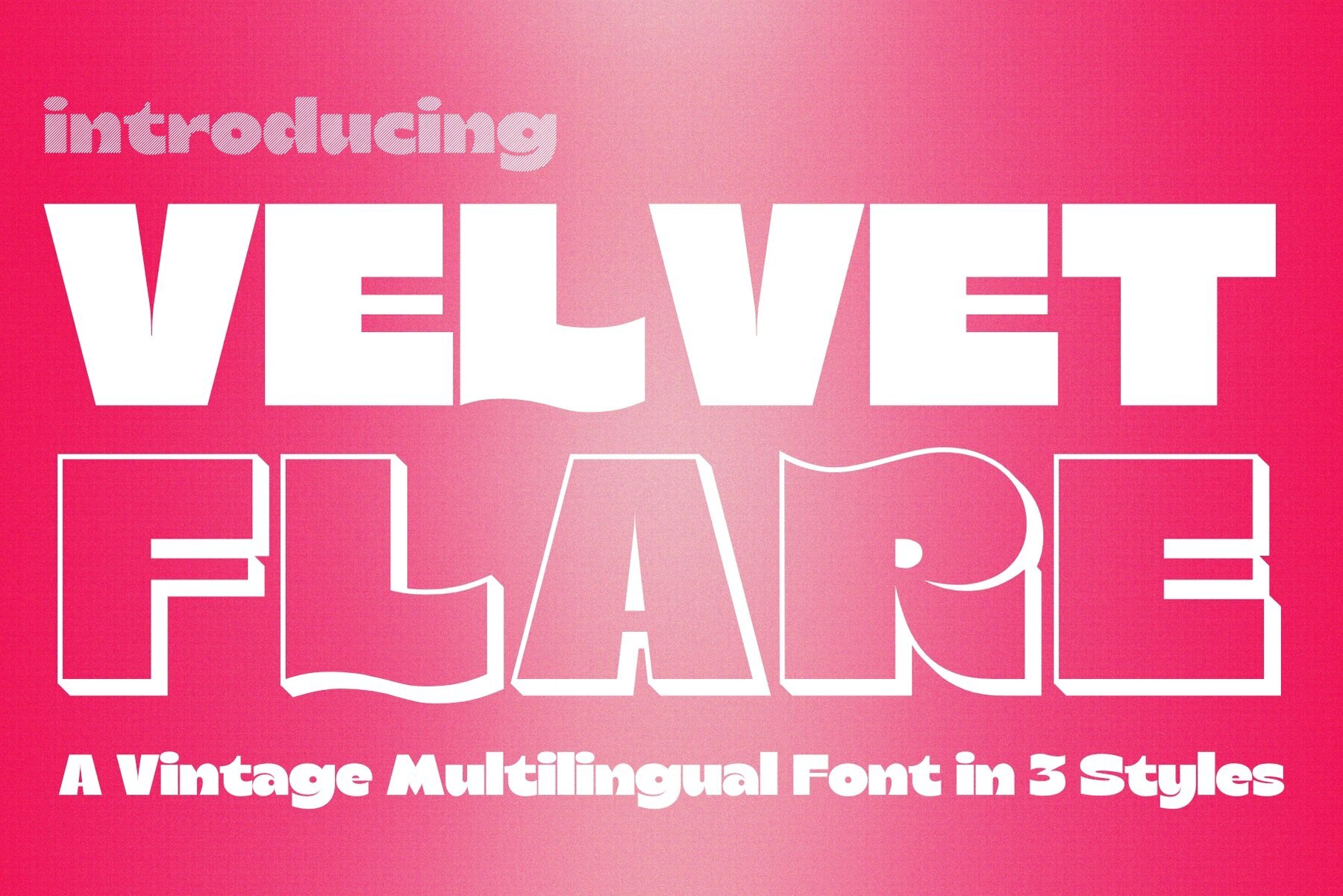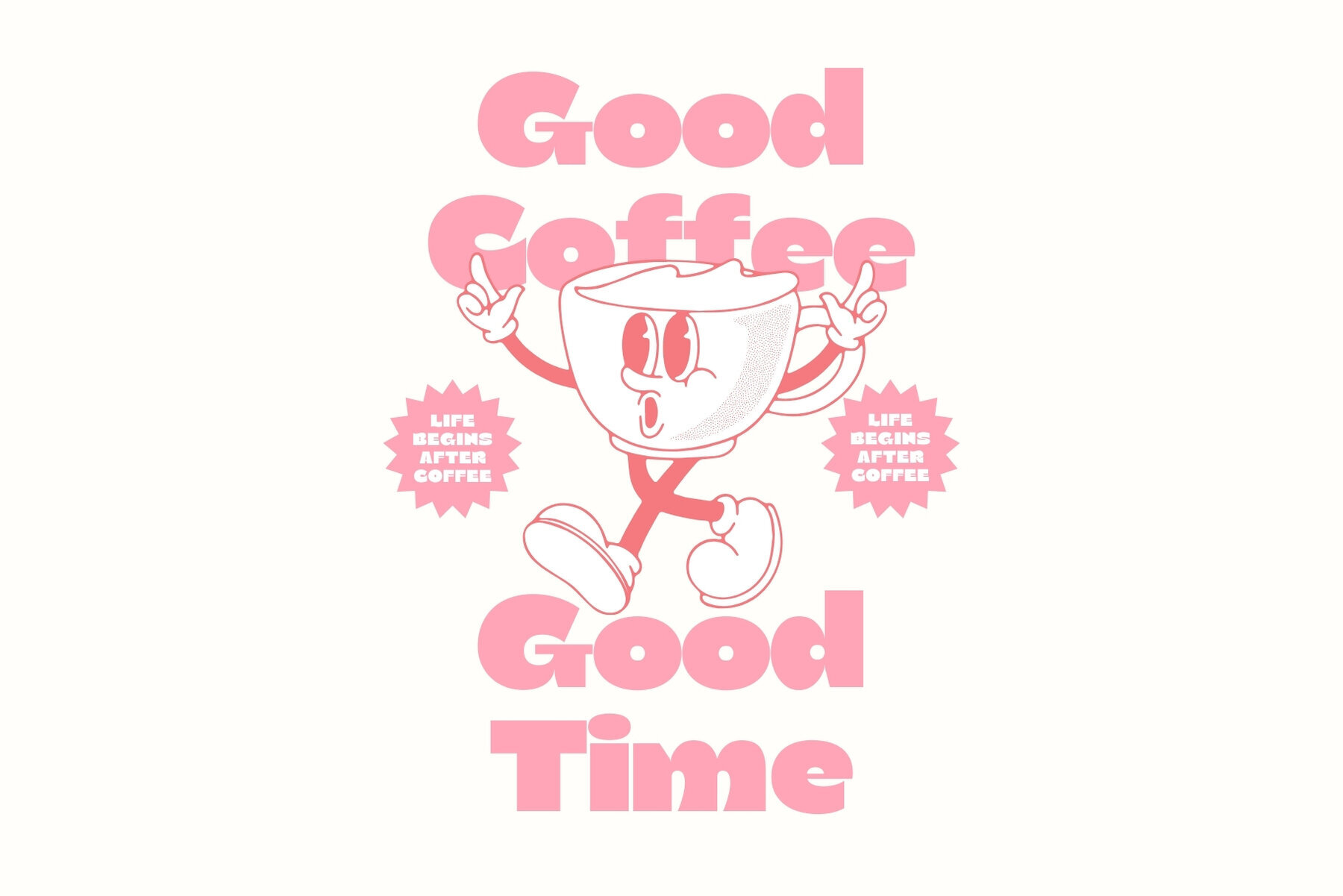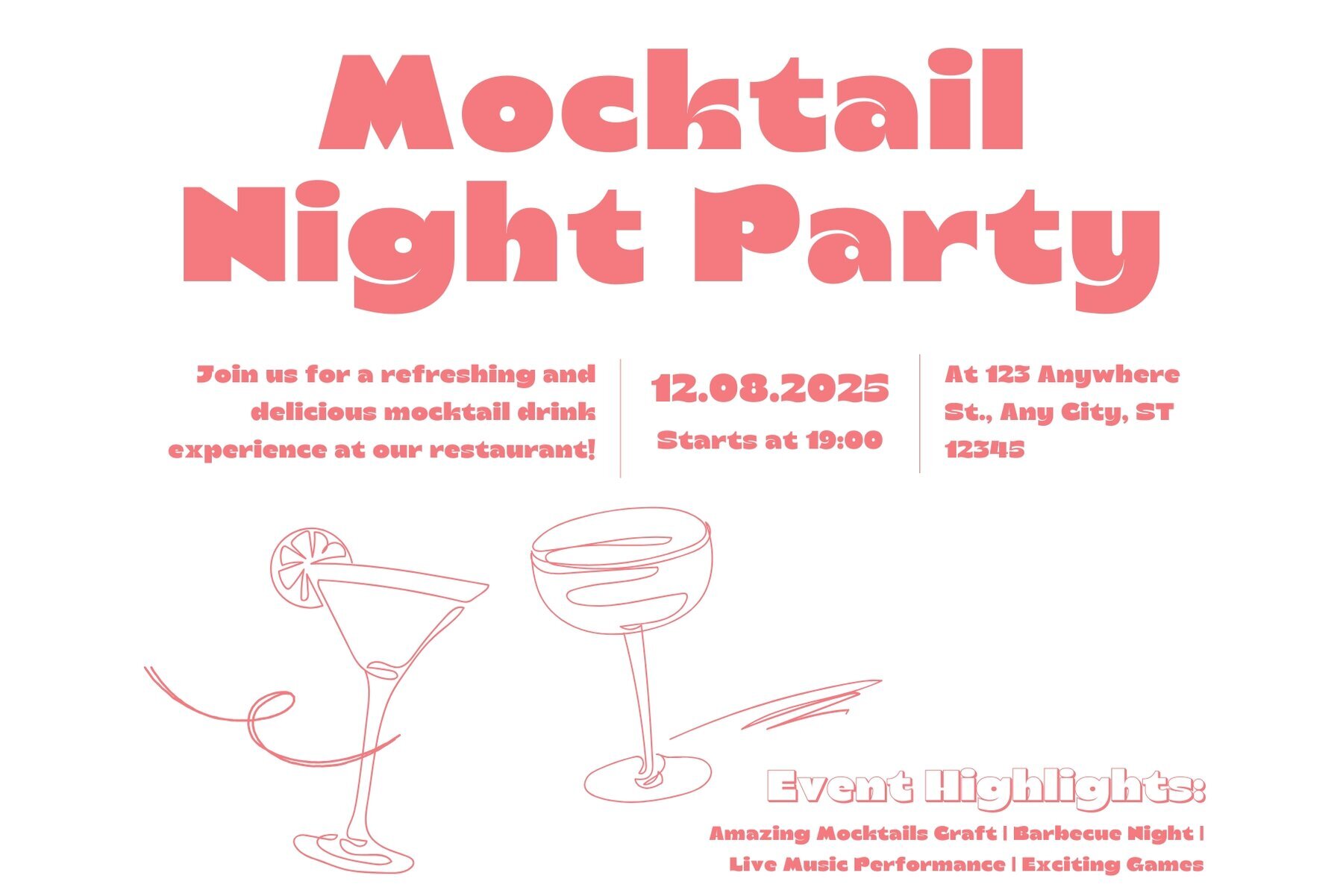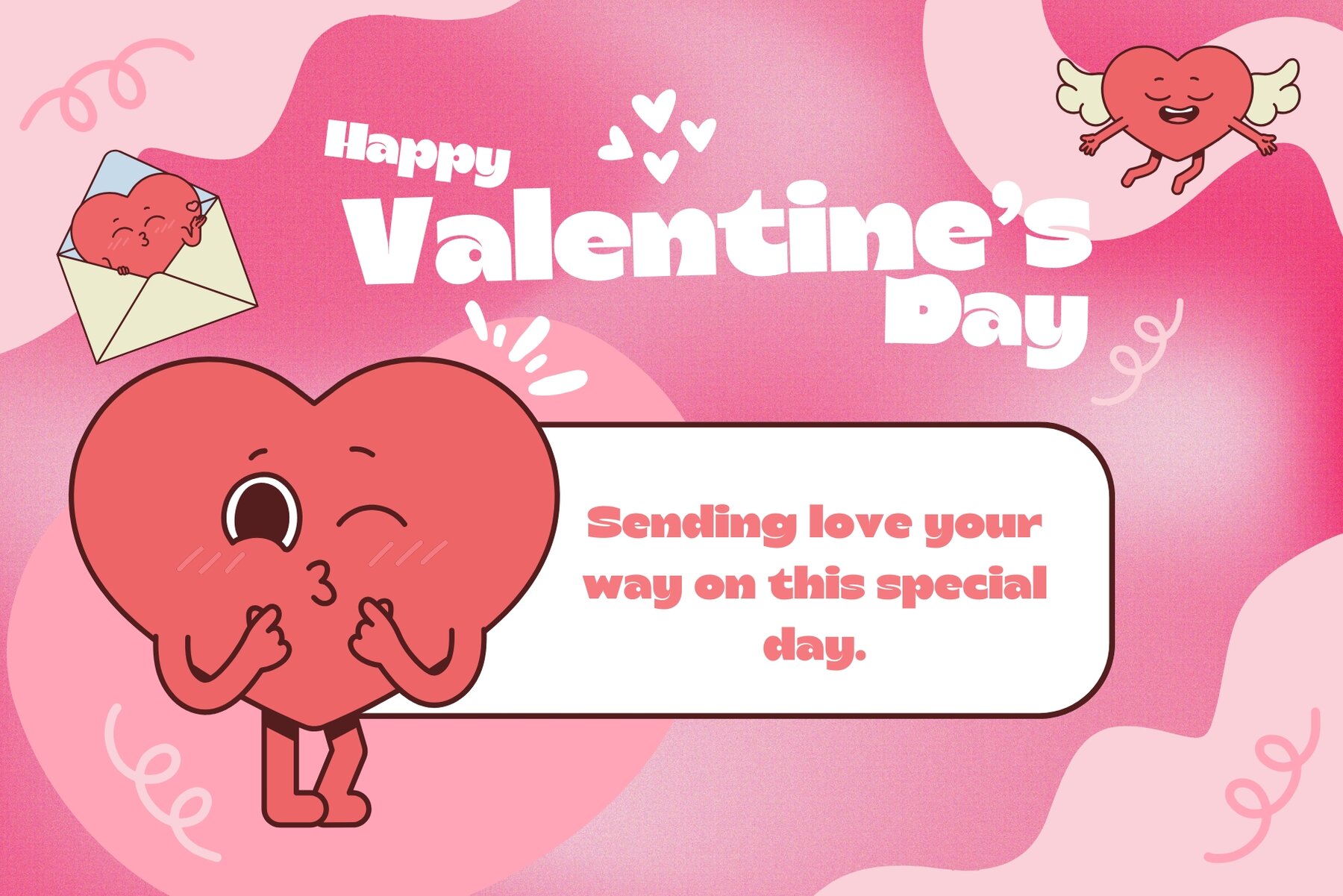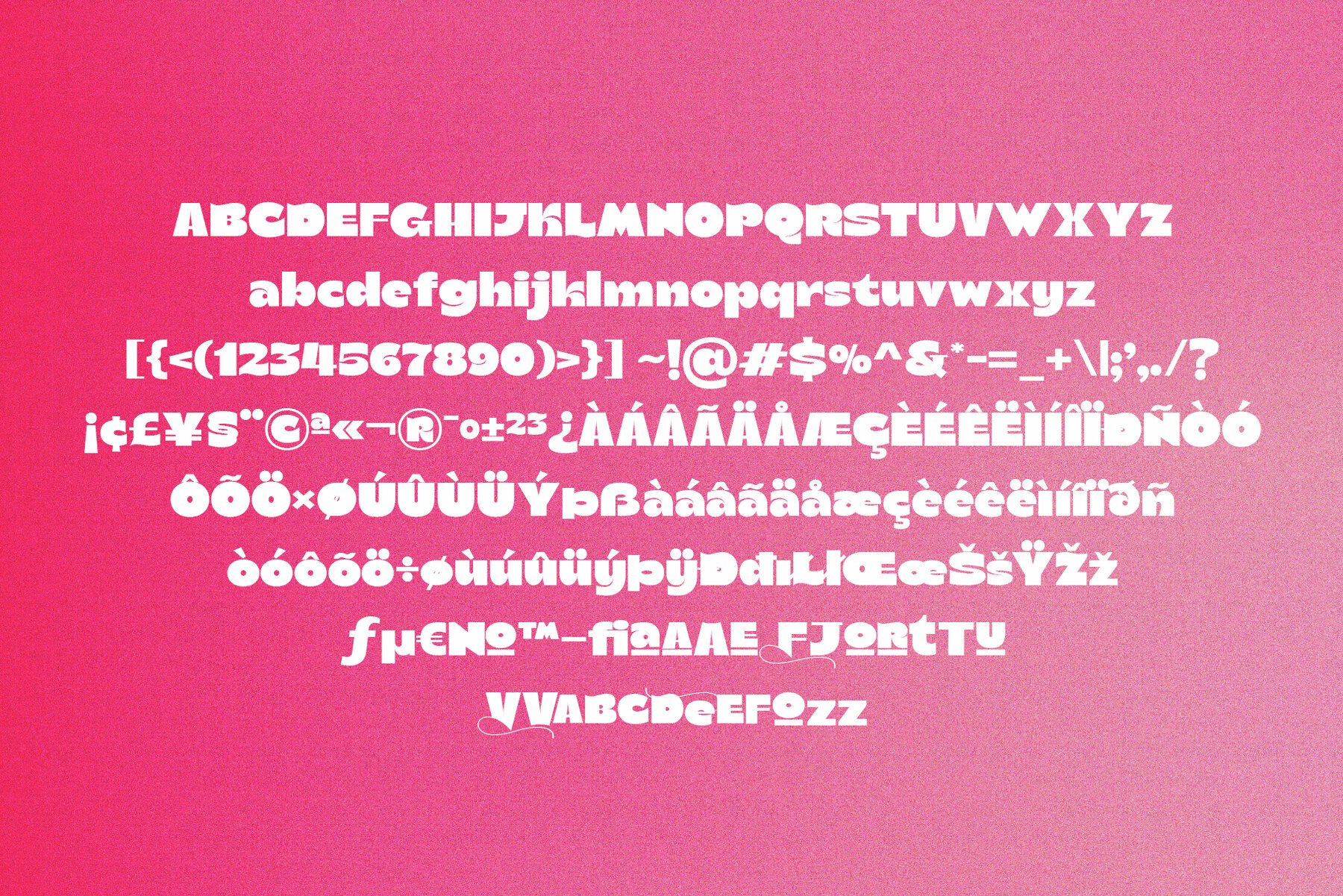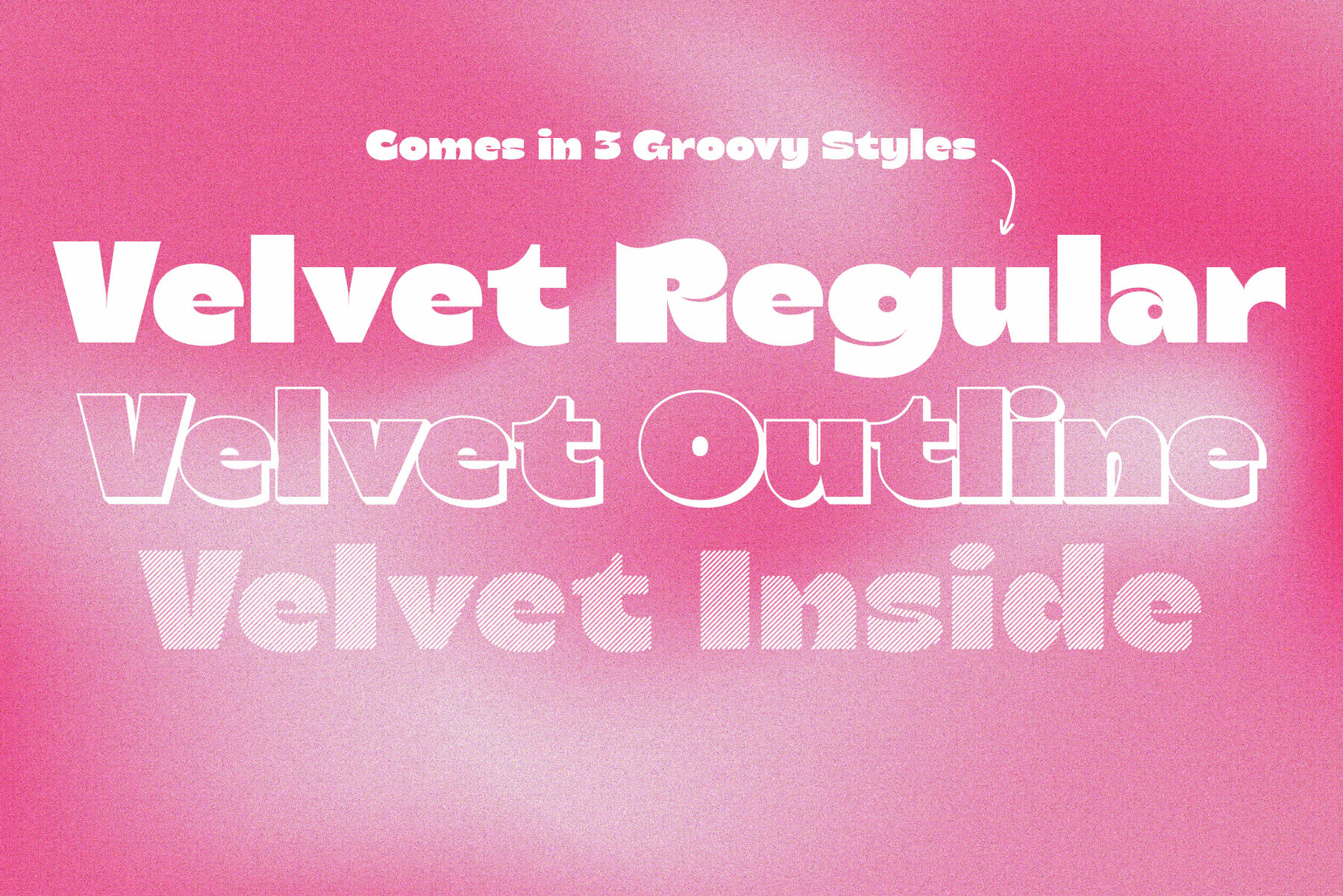
Velvet Flare Font
Velvet Flare Regular
Velvet Flare Inside
Velvet Flare Outline
Introducing Velvet Flare, a vintage-inspired typeface that seamlessly blends timeless sophistication with a modern twist. Perfectly crafted for design aficionados, this font's graceful curves and bold presence bring a hint of retro charm to any project. Velvet Flare strikes the ideal balance between classic aesthetics and contemporary style, making it an excellent choice for branding, editorial layouts, and eye-catching social media graphics. With full multilingual support, Velvet Flare extends its signature charm to a global scale. Whether crafting a chic brand identity, creating a sophisticated event invitation, or designing a fashion-forward editorial spread, this typeface ensures your typography stands out with elegance and personality. Velvet Flare offers a touch of vintage allure with a distinctly modern edge.Vintage Elegance Meets Modern Flair
Versatile Styles for Dynamic Design